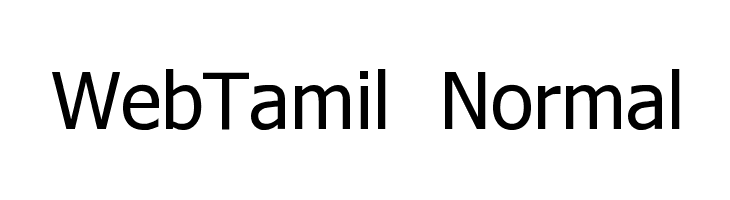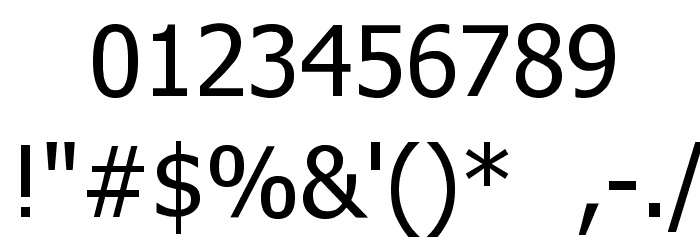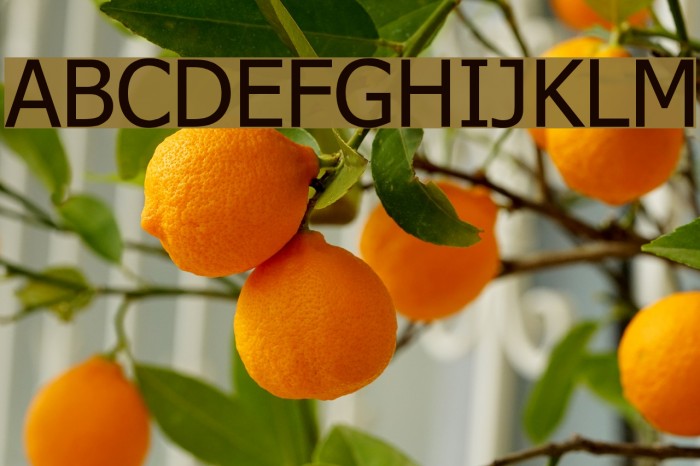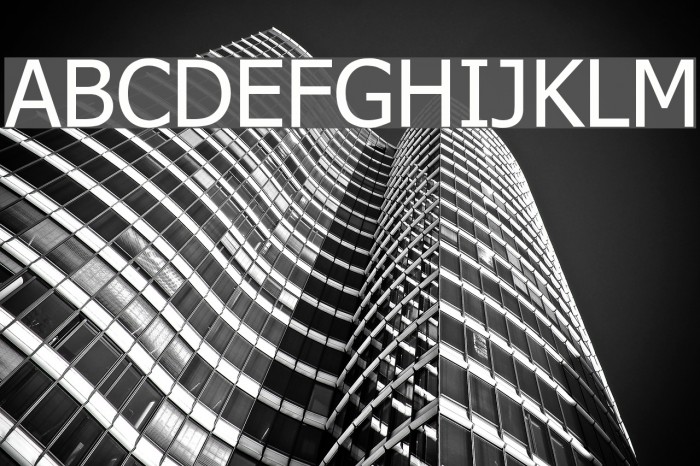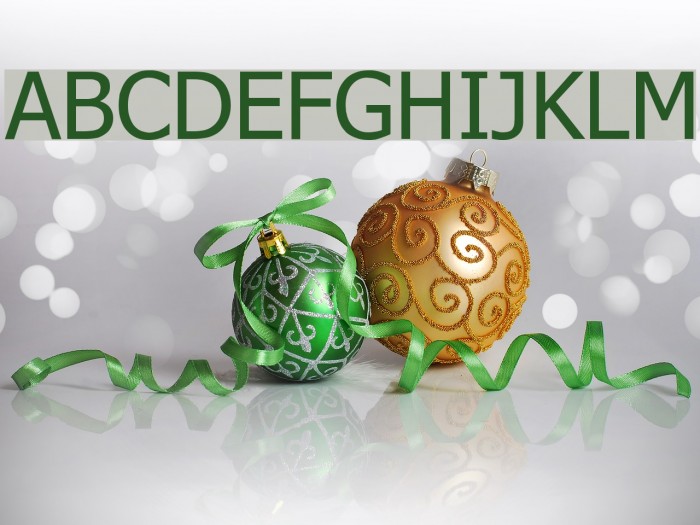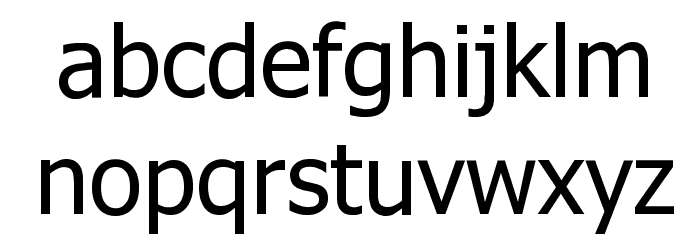
WebTamil Normal Font
WebTamil Normal Description
This font features a clean and modern sans-serif design, characterized by its simplicity and readability. The uppercase letters are bold and well-defined, while the lowercase letters maintain a consistent height and spacing, ensuring clarity in text. The numerals are straightforward and align well with the overall design, making them easy to read. Special characters are distinct and maintain the font's minimalist aesthetic. The overall appearance is balanced, with a focus on functionality and versatility, suitable for both digital and print media.
A modern sans-serif font with clean lines and excellent readability from Uncategorized fonts.